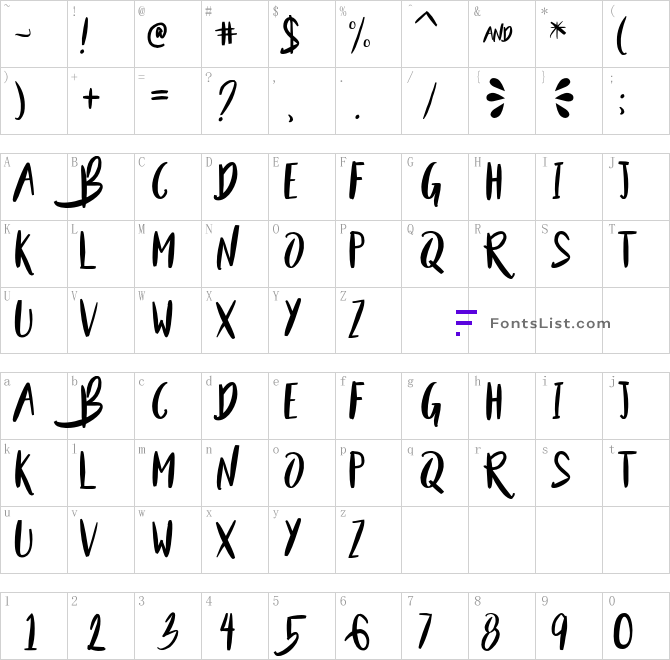
• Font Name:Beauty and the Beast
Beauty-and-the-Beast-.otf is a very beautiful artistic font, Beauty-and-the-Beast-.otf is widely used in the design and printing of various books and pictures,Beauty-and-the-Beast-.otf has a strong visual impact,Beauty-and-the-Beast-.otf is a commonly used font in newspapers, magazines and books, and is used in posters, e-commerce Poster design, store design, logo design, font design and other fields.Beauty-and-the-Beast-.